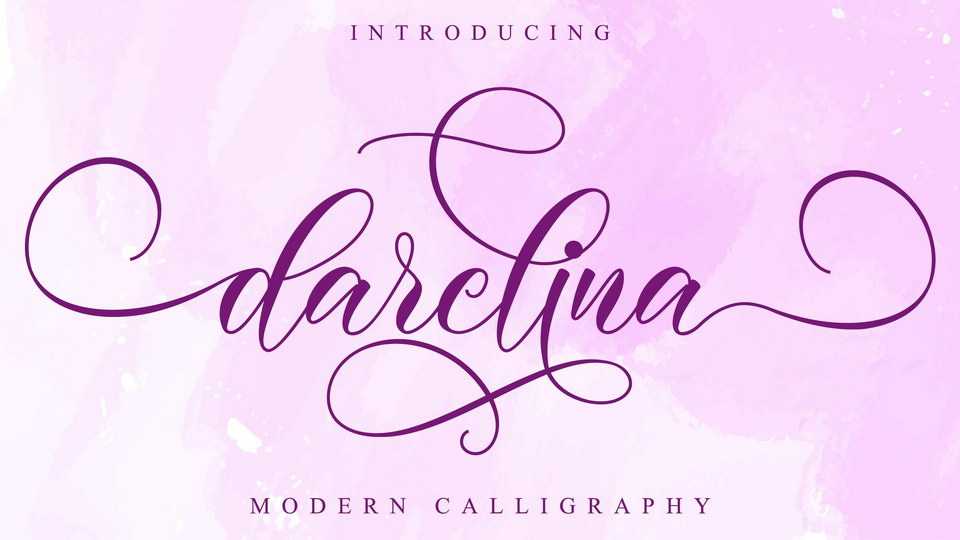
Download Darelina font, a stunning and enchanting typeface, but also incredibly modern. Darelina script has a wide range of applications ranging from greeting cards to headlines and is guaranteed to add a romantic feel to your next project.